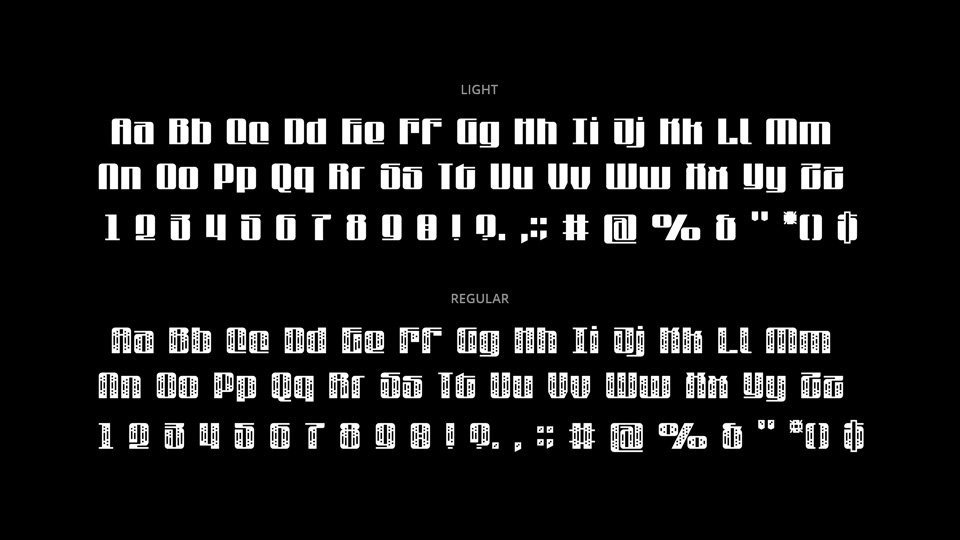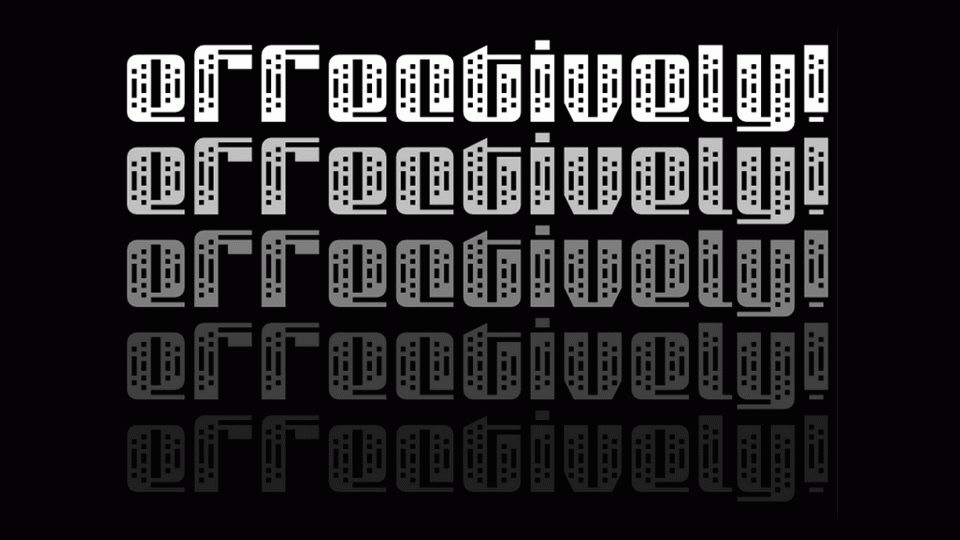
Graphene is a bold and strong high contrast typeface. It comes in two styles: Regular with experimental pattern-fill design, and Black. Each font contains a basic set of glyphs, supports Dutch, English, and German.
Graphene font perfectly suits for headlines, banners, posters, loud statements, logos, branding and other creative projects.